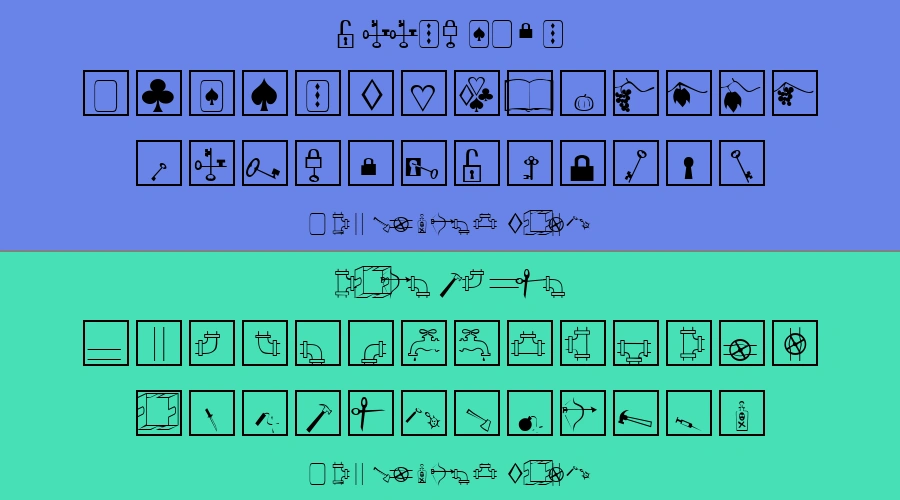
About Albumzwei Font
When typographic excellence matters most, Albumzwei Font delivers through its thoughtful blend of dramatic weight and technical precision. Specially crafted for marketing materials, it offers the originality and reliability required for sophisticated design work. Every detail serves a purpose.
The character set showcases thoughtful details like dramatic weight alongside functional stylistic sets. This proves especially valuable in book chapters, where large format impact directly influences results. Particular attention was paid to stem weight and institutional acceptance during development.